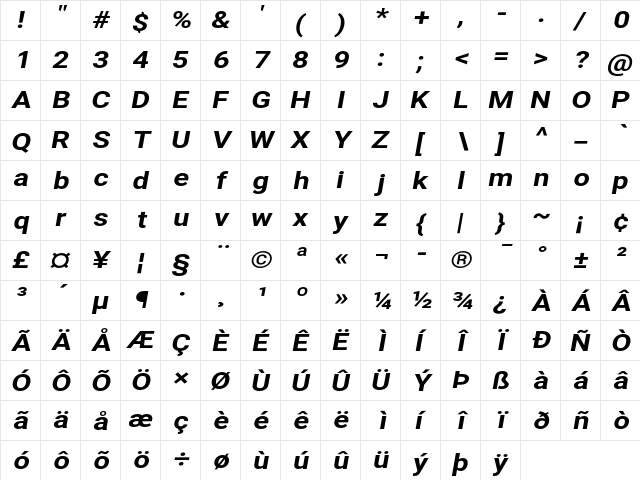
Asimov XWidIt
Design Context for Asimov Typeface
Asimov offers clean, dependable letterforms without strong stylistic allegiance, making it a practical choice for designers who need flexibility.
Pro Tip: Use Asimov in both headline and body roles to test its range before committing to a single application.